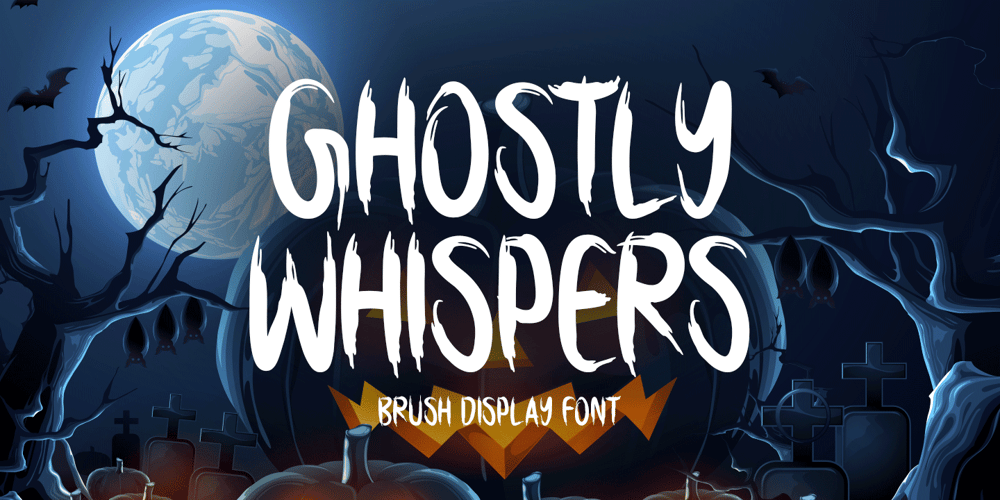
Ghostly Whispers
Ghostly Whispers font
Ghostly Whispers Font Family was designed by Md Shohail Bhuian and published by Seemly Fonts. Ghostly Whispers contains 1 styles and family package options. A creepy and gloomy display typeface is called Ghostly Whispers. This typeface is perfect for use in stationary, logos, t-shirts, paper, print design, website headers, picture frames, flyers, album covers, posters, image sliders, and other items.